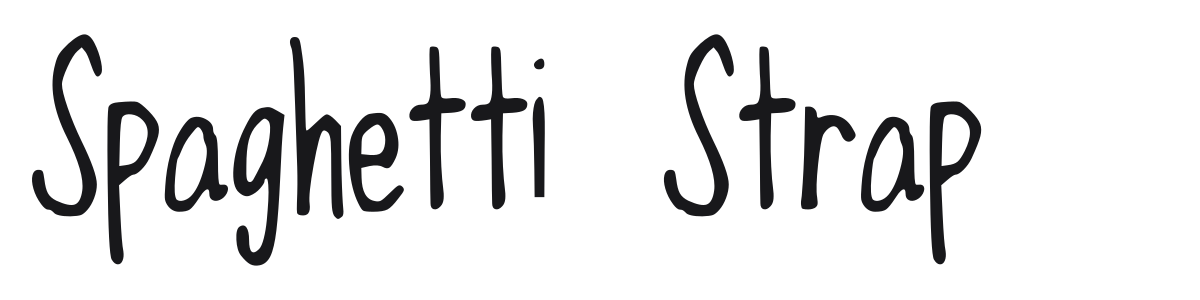
Spaghetti Strap
by Kelsey Ann G
Spaghetti Strap is a thin, condensed handwritten face by Kelsey Ann G with a breezy, informal rhythm that feels like quick ballpoint notes on a napkin. The lightweight strokes and narrow letterforms keep things airy and playful without demanding much visual space, making it a good fit for personal projects, greeting cards, social media graphics, and casual branding where polish isn't the point.